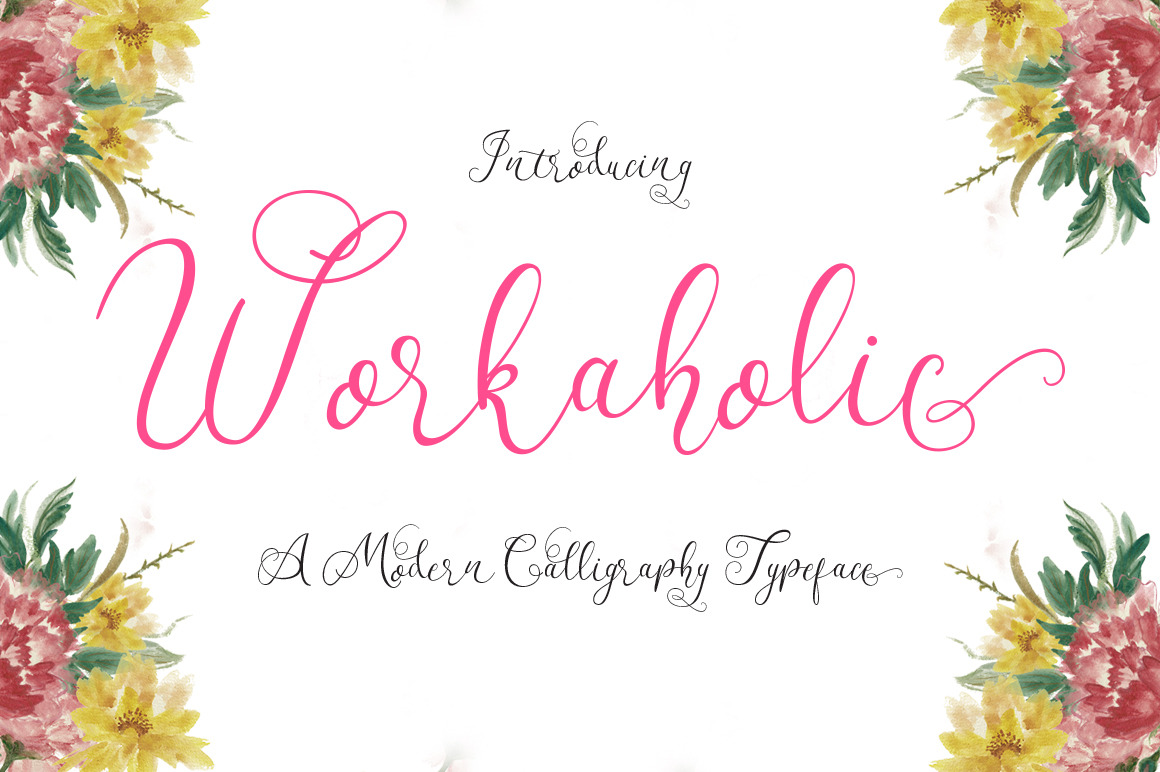
Workaholic Typeface
Comes with upper and lowercase characters, large set of punctuation glyphs, numerals, and supports international languages. Stylistic alternates for several key lower case characters are also available, accessible in the Adobe Illustrator Glyphs panel.
Can be used for various purposes.such as headings, logos, wedding invitation, t-shirt, letterhead, signage, label, news, posters, badges etc.